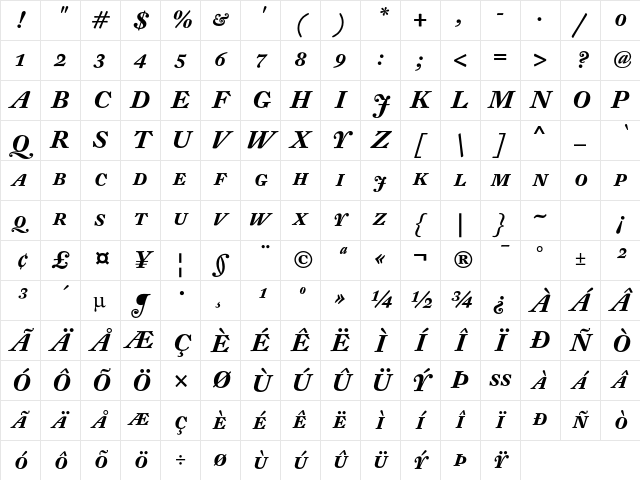
Complete DTL Fleischmann Display Bold Italic Caps glyph index. Displaying only characters natively supported by DTL Fleischmann Display Bold Italic Caps font.
DTL Fleischmann Display is built around its visual character rather than neutral utility - its distinctive forms are designed to make an impression at display sizes. The slanted form adds forward momentum and visual energy. Its bold stroke weight gives it real presence on the page.
Font Pairing: Pair with a clean neutral sans-serif for body copy to let DTL Fleischmann Display's character lead without overwhelming the composition.
Pro Tip: Use DTL Fleischmann Display exclusively at display sizes - it was designed to be seen, not read at length. Let a neutral companion handle body copy.